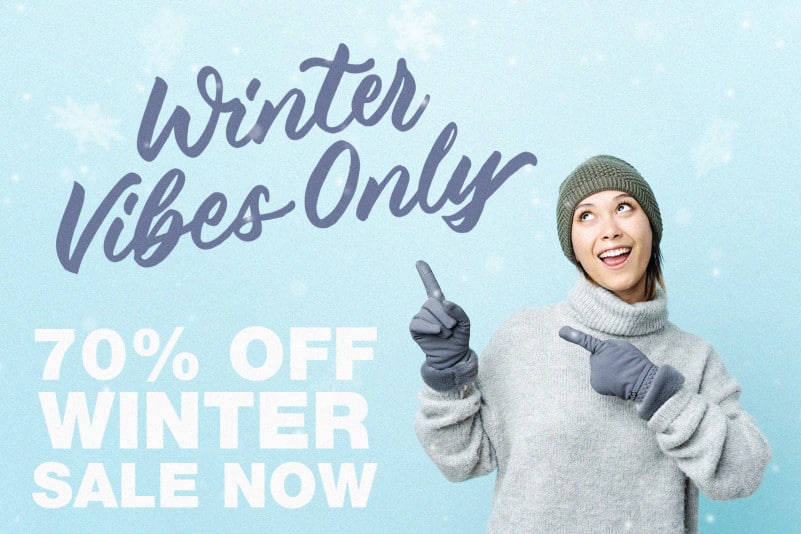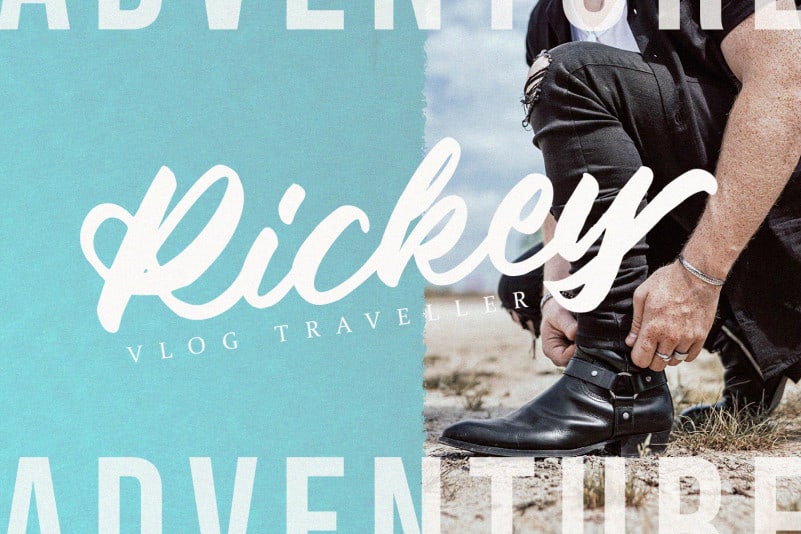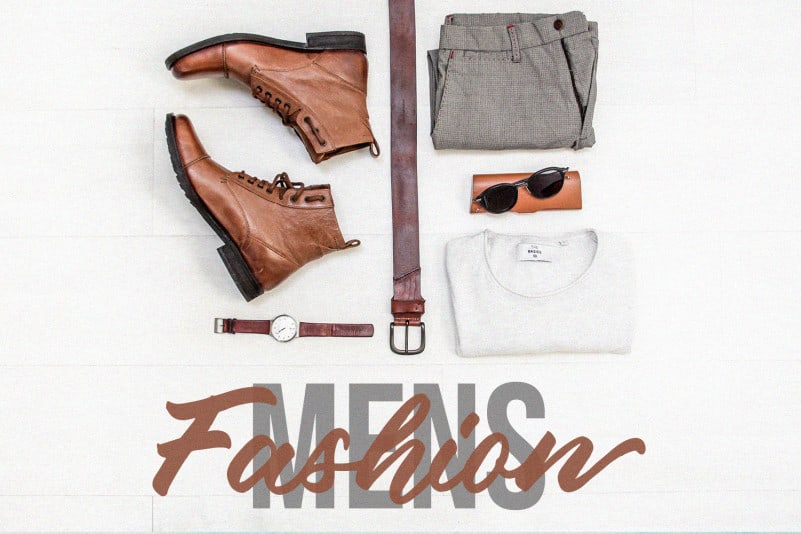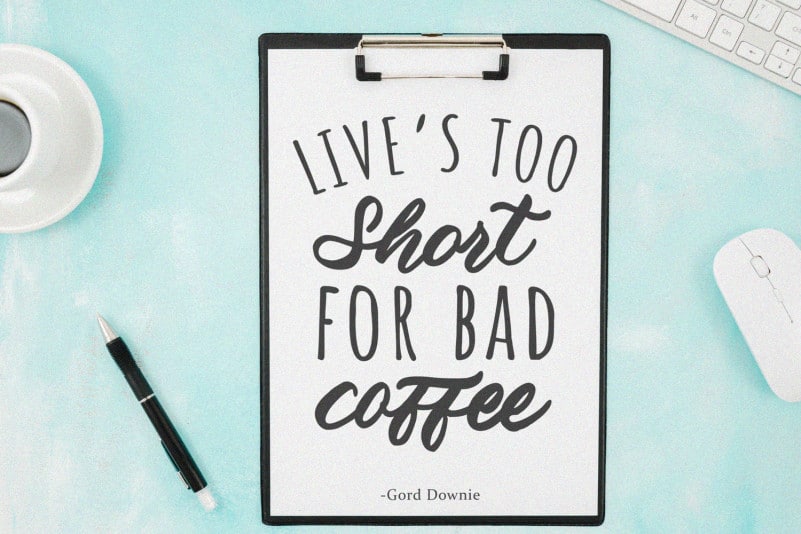
Bathiora Script Font is a stunning casual handwritten font with authentic and casual feels. It will be perfectly used for Branding, Logo Design, Lettering, Logotype, Clothing, Poster, magazine, packaging, posters, shopping bags, t-shirts, book covers, photography, special events and other design project.